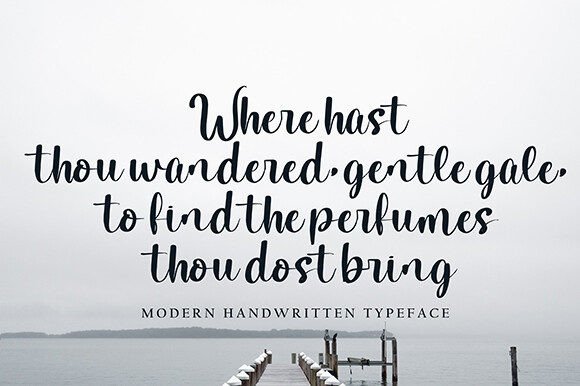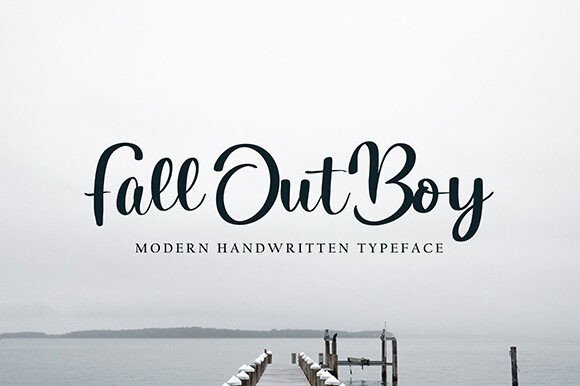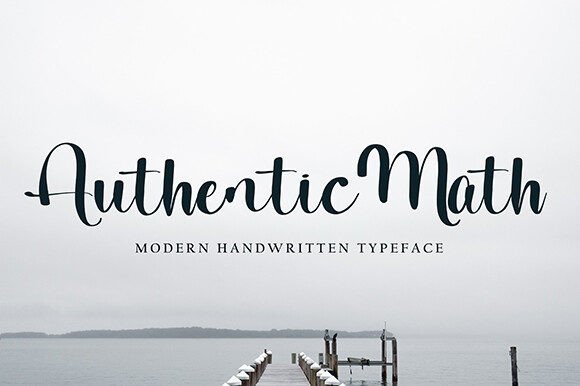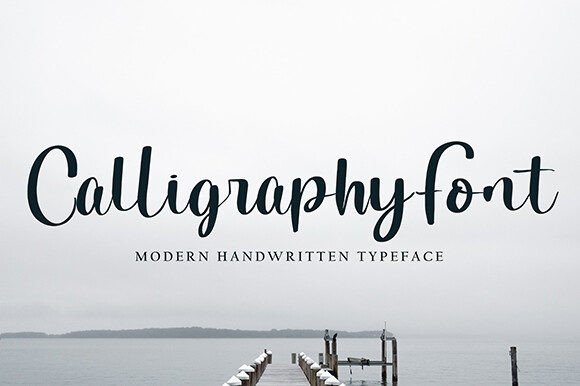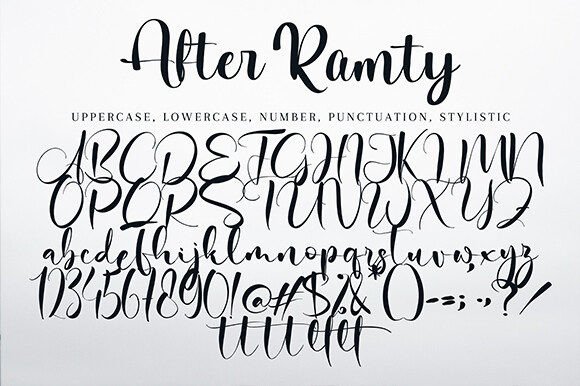
Introducing After Ramty Font: Elevate Your Creativity with Elegance
Are you a designer, crafter, or DIY enthusiast looking for a font that can add a touch of magic to your creative projects? Look no further than After Ramty Font, a beautiful script font that combines elegance with versatility. In this article, we’ll explore the features and benefits of After Ramty Font, and show you how it can help you turn your creative ideas into stunning works of art.
What is After Ramty Font?
After Ramty Font is a carefully crafted script font that boasts a unique blend of elegance and playfulness. With its flowing lines and intricate details, this font is perfect for adding a touch of sophistication to any design project. Whether you’re creating social media graphics, crafting DIY projects, or designing calligraphy scripts, After Ramty Font is the perfect choice.
Key Features of After Ramty Font
- Elegant Script Design: After Ramty Font features a beautiful script design that is both elegant and eye-catching. Its flowing lines and intricate details make it perfect for creating stunning calligraphy scripts and artistic designs.
- Versatile and Adaptable: This font is highly versatile and can be used for a wide range of design projects, from social media graphics to DIY crafts and calligraphy scripts.
- Easy to Read and Write: Despite its intricate design, After Ramty Font is easy to read and write, making it perfect for creating beautiful handwriting-style designs.
Uses of After Ramty Font
After Ramty Font is a highly versatile font that can be used for a wide range of design projects, including:
- Instagram Graphics: Add a touch of elegance to your Instagram graphics with After Ramty Font. Use it to create stunning quotes, captions, and stories that will engage your followers.
- DIY Projects: Use After Ramty Font to add a personal touch to your DIY projects, such as handmade cards, gift tags, and scrapbook pages.
- Calligraphy Scripts: Create beautiful calligraphy scripts with After Ramty Font. Use it to add a touch of elegance to your wedding invitations, certificates, and other formal documents.
- Branding and Packaging: Use After Ramty Font to create stunning branding and packaging designs that will help your business stand out.
Tips for Using After Ramty Font
Here are some tips for getting the most out of After Ramty Font:
- Pair it with Other Fonts: After Ramty Font pairs well with other fonts, so don’t be afraid to experiment with different font combinations to create a unique look.
- Use it for Headings and Titles: After Ramty Font is perfect for headings and titles, so use it to add a touch of elegance to your design.
After Ramty Font is a magical script font that can add a touch of elegance to any design project. With its flowing lines, intricate details, and versatile design, this font is perfect for designers, crafters, and DIY enthusiasts. Whether you’re looking for fonts for Instagram or calligraphy scripts for DIY projects, After Ramty Font is the perfect choice. So why wait? Download After Ramty Font today and turn your creative ideas into stunning works of art!